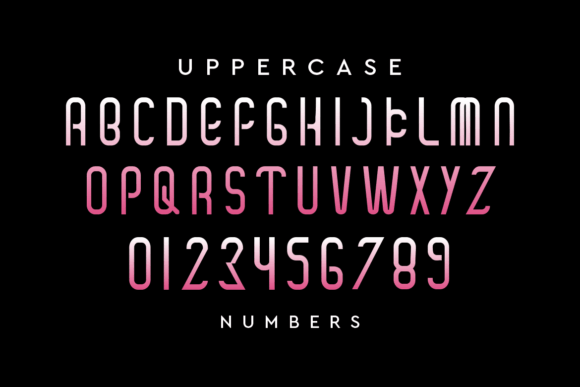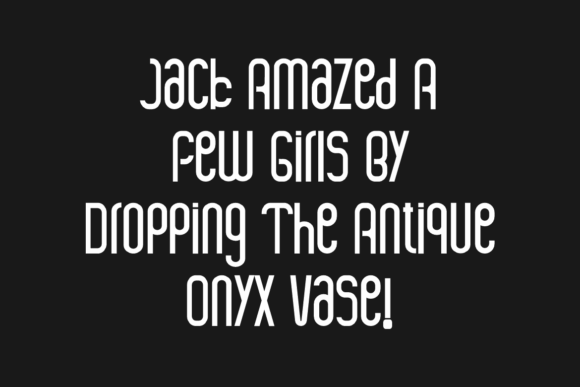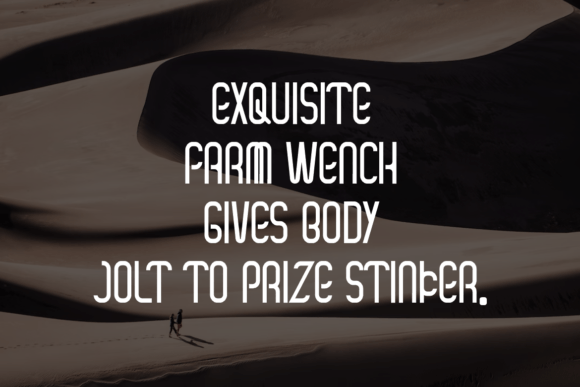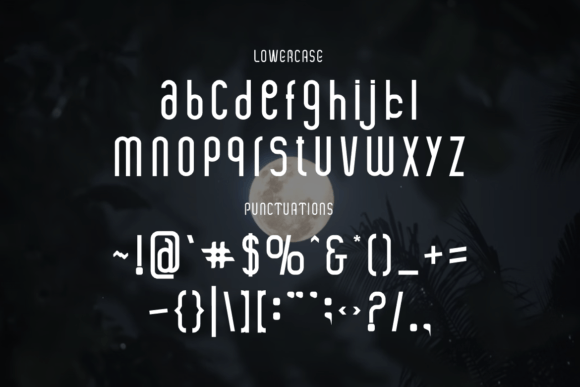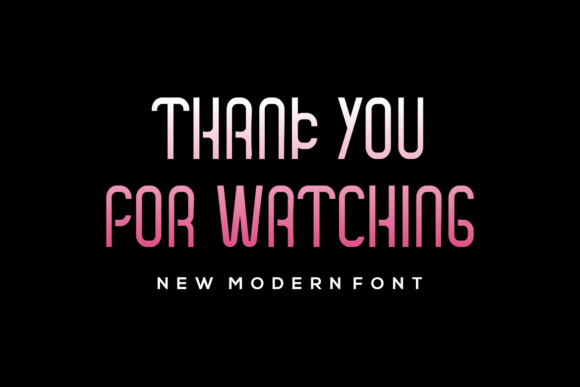
Discover the Charm of Down More Font: Elevate Your Designs with a Touch of Romance
In the vast world of typography, finding the perfect font that captures the essence of your project can be a daunting task. However, if you’re looking to add a romantic feel to your designs, look no further than the Down More Font. This unique, smooth display font is versatile and can be used across a wide spectrum of applications, from greeting cards to headlines, making it a must-have for designers and crafters alike.
What is Down More Font?
Down More Font is a distinctive typeface that stands out for its smooth and elegant appearance. Its design is carefully crafted to evoke a sense of romance and sophistication, making it perfect for projects where you want to convey a sense of warmth and intimacy. Whether you’re working on a wedding invitation, a Valentine’s Day card, or simply want to add a touch of elegance to your website’s headlines, Down More Font is an excellent choice.
Key Features of Down More Font
- Versatility: One of the key advantages of Down More Font is its versatility. It can be used in a variety of contexts, from digital platforms like websites and social media to print materials such as brochures, posters, and greeting cards.
- Smooth Display: The font boasts a smooth display that ensures your text looks elegant and refined, regardless of the size or medium.
- Romantic Appeal: The unique design of Down More Font is guaranteed to add a romantic feel to your projects, making it perfect for designs that require a touch of warmth and intimacy.
Applications of Down More Font
The applications of Down More Font are vast and varied. Here are a few ideas to get you started:
- Greeting Cards: Add a personal touch to your greeting cards for special occasions like weddings, anniversaries, and Valentine’s Day.
- Wedding Invitations: Make your wedding invitations stand out with a beautiful and elegant font that sets the tone for your special day.
- Headlines and Titles: Use Down More Font to create stunning headlines and titles for your website, blog, or marketing materials.
- Social Media Graphics: Elevate your social media presence with eye-catching graphics that feature Down More Font.
- Branding: Incorporate Down More Font into your brand’s typography to convey a sense of elegance and sophistication.
Down More Font is a unique and versatile typeface that can add a touch of romance and elegance to your designs. Its smooth display and wide range of applications make it a valuable addition to any designer’s toolkit. Whether you’re working on a romantic project or simply want to elevate your typography, Down More Font is an excellent choice. So, why wait? Discover the charm of Down More Font and take your designs to the next level.